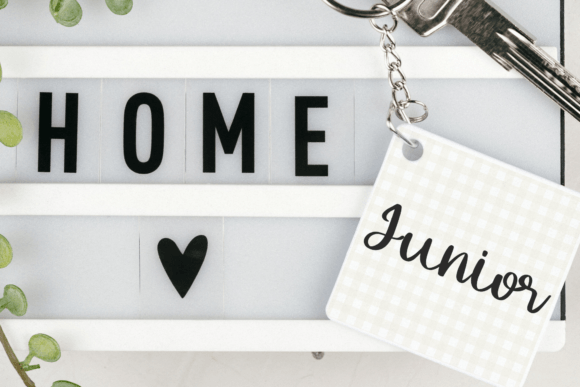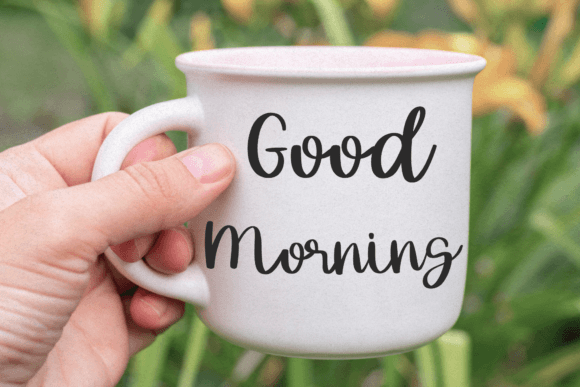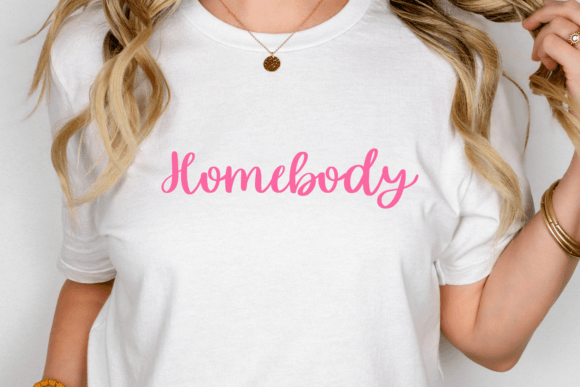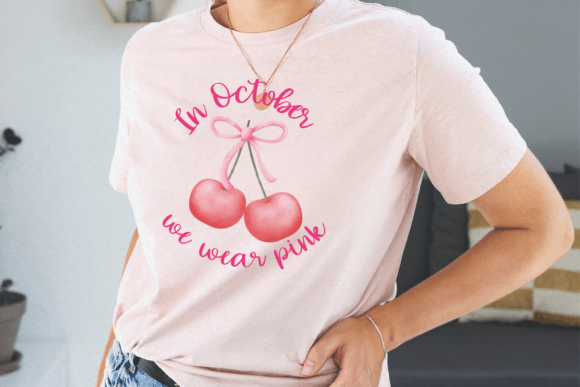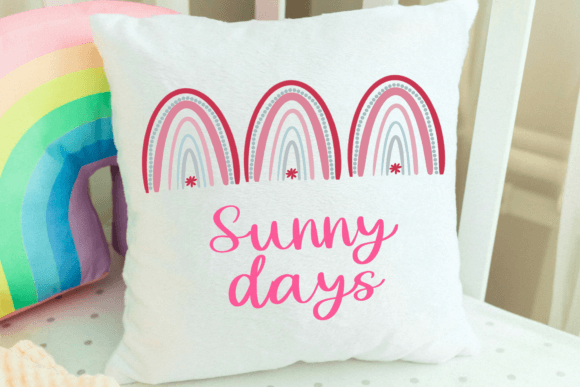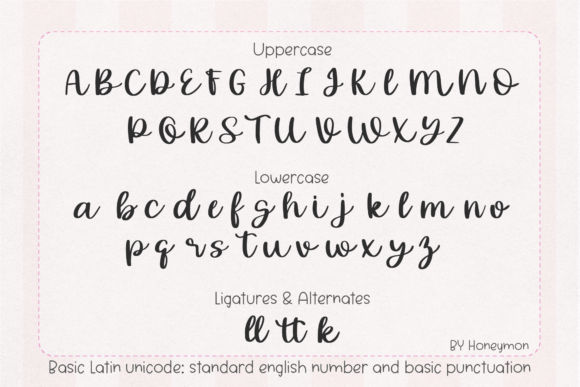
Introduction to October Pink Font
October Pink is a cute and lovely handwritten script font.
Its casual charm and fun personality are perfect for creating cozy autumn designs .
Key Features of October Pink Font